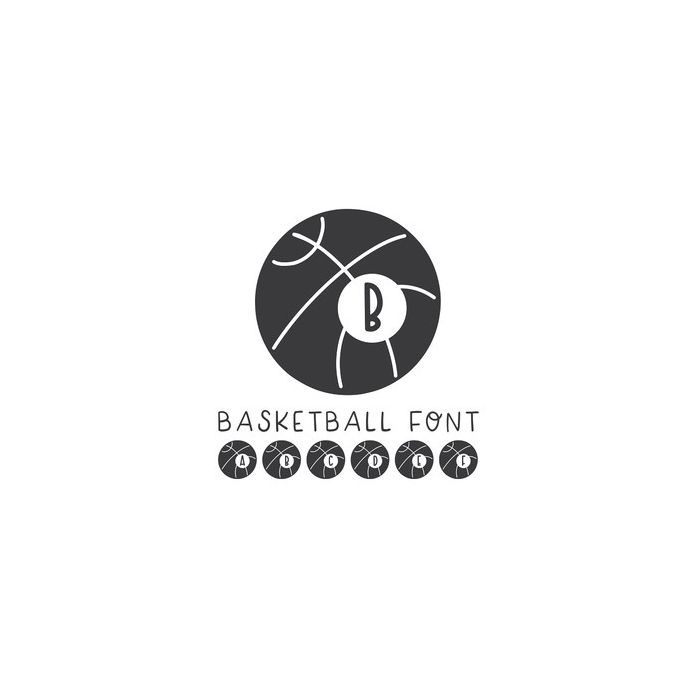
"Basketball Font" is a basketball monogram font. This font includes letters A-Z, numbers 0-9 and 1 extra blank basketball (use @ key). This font pairs with our font "Aloma Island" if you would like to match it with text.